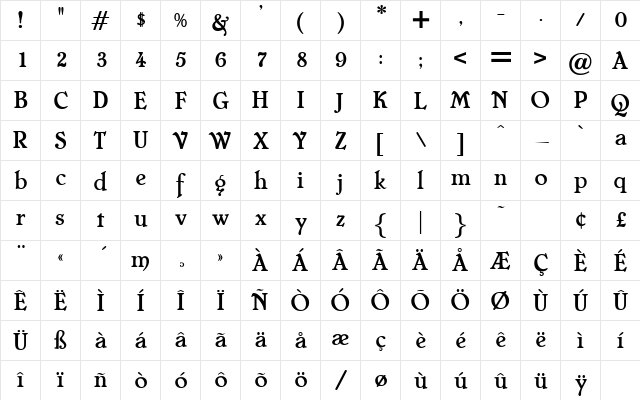
Cheever Regular Font Preview
Cheever Regular
Design Context for Cheever Typeface
Cheever is a composed and adaptable typeface that performs quietly and consistently across a wide range of design contexts.